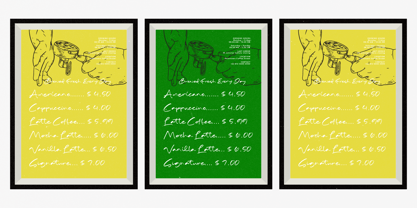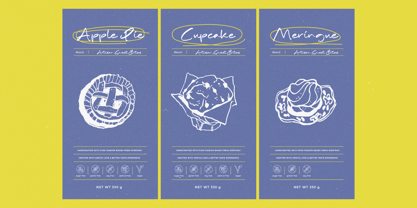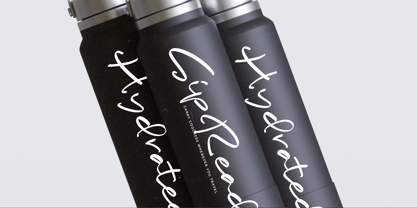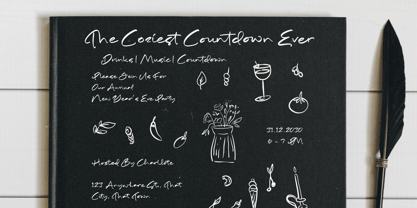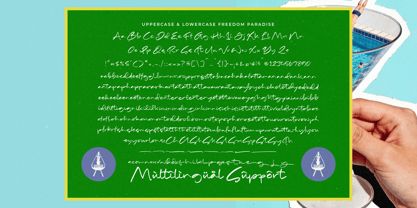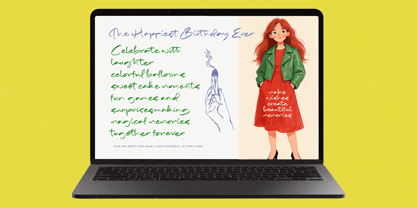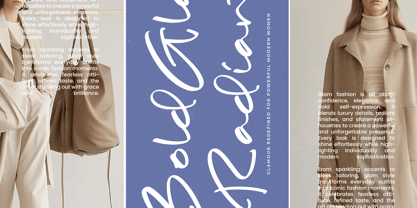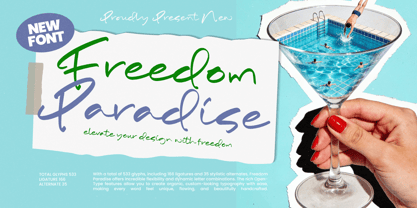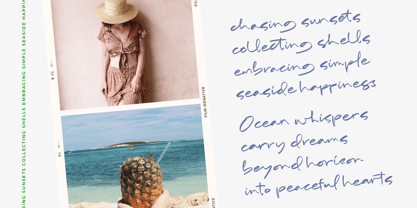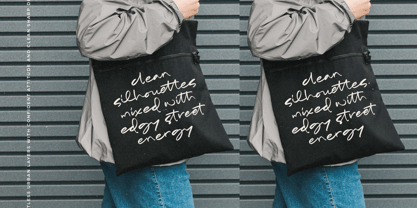
Freedom Paradise
by Stylishtype Studio
The Freedom Paradise Font Family was designed by Heru Utama Putra and published by Stylishtype Studio. Freedom Paradise contains 2 styles and family package options. More about this family
Freedom Paradise is a dynamic handwritten script font designed to bring expressive energy and natural flow to modern design projects. Inspired by spontaneous brush strokes and organic lettering, this typeface combines casual elegance with strong personality, making it perfect for branding, social media graphics, packaging, posters, lifestyle campaigns, and creative editorials. With a total of 533 glyphs, including 166 ligatures and 35 alternates, Freedom Paradise offers exceptional typographic flexibility and seamless letter combinations that create smooth, custom-looking compositions. Its rich OpenType features allow designers to craft fluid, handcrafted typography effortlessly, ensuring every word feels unique, vibrant, and authentic across both print and digital applications.